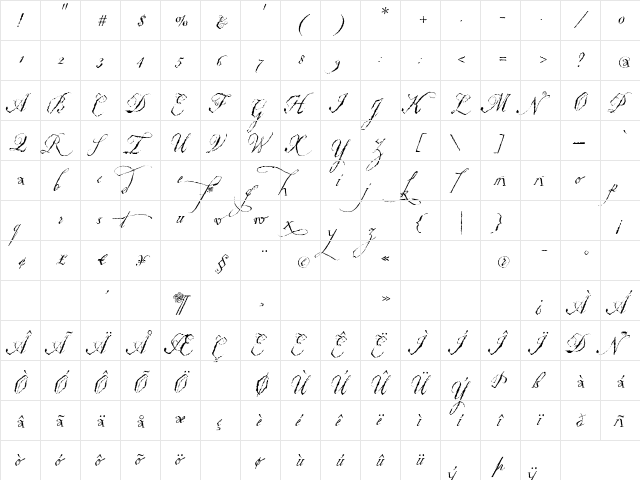
Bacchus Regular Regular
Design Context for Bacchus Regular Typeface
Bacchus Regular is a composed and adaptable typeface that performs quietly and consistently across a wide range of design contexts.